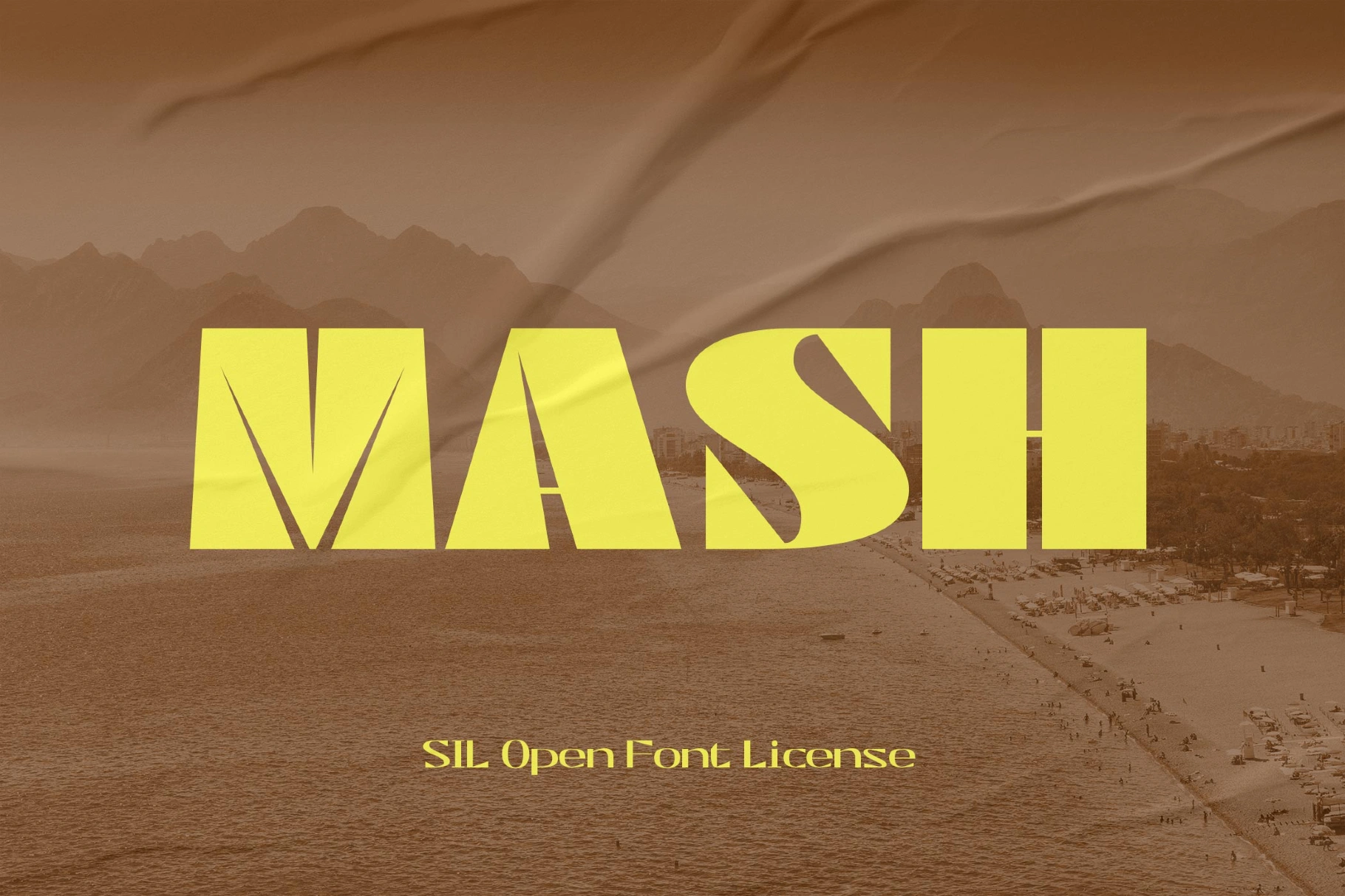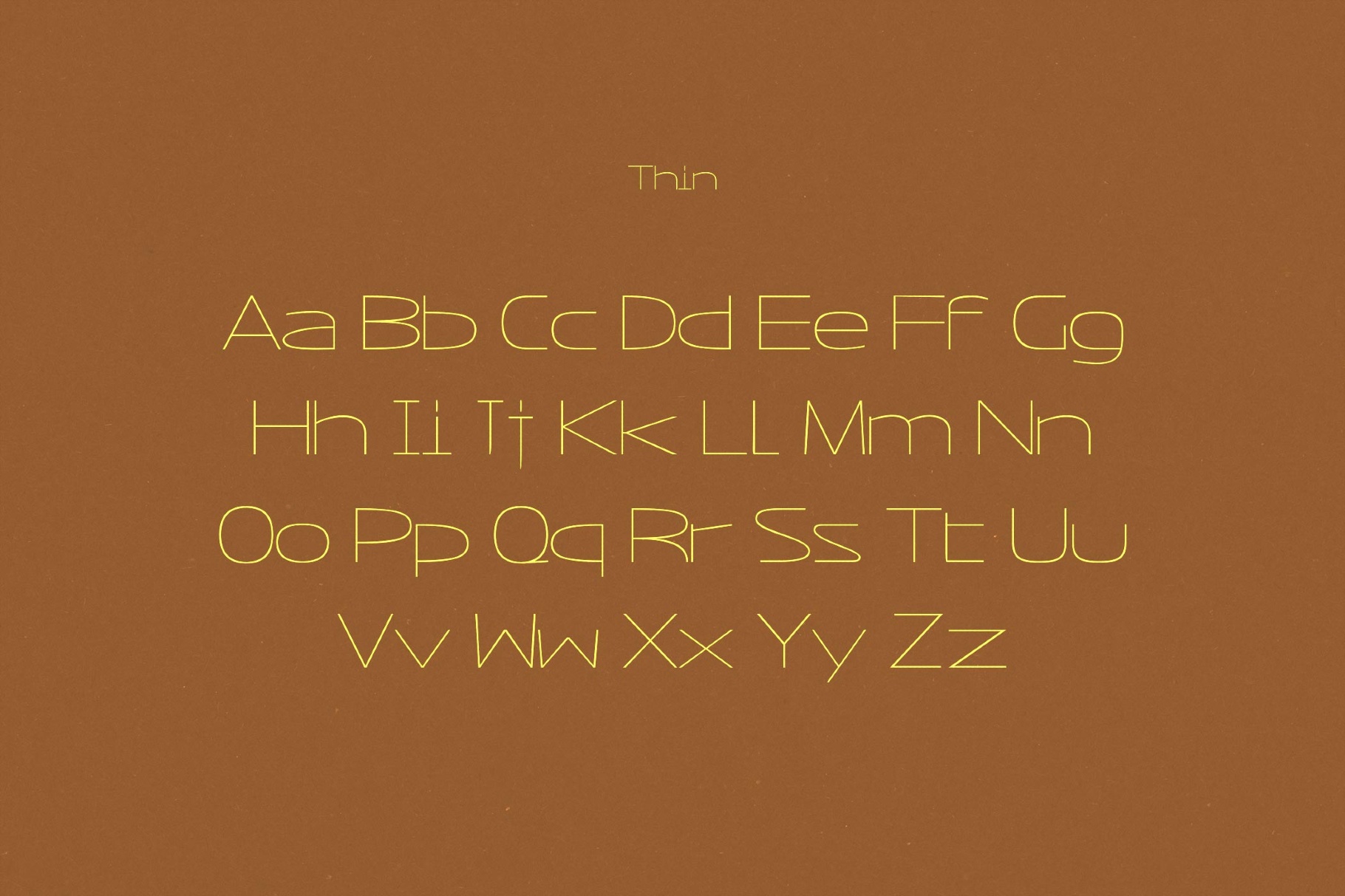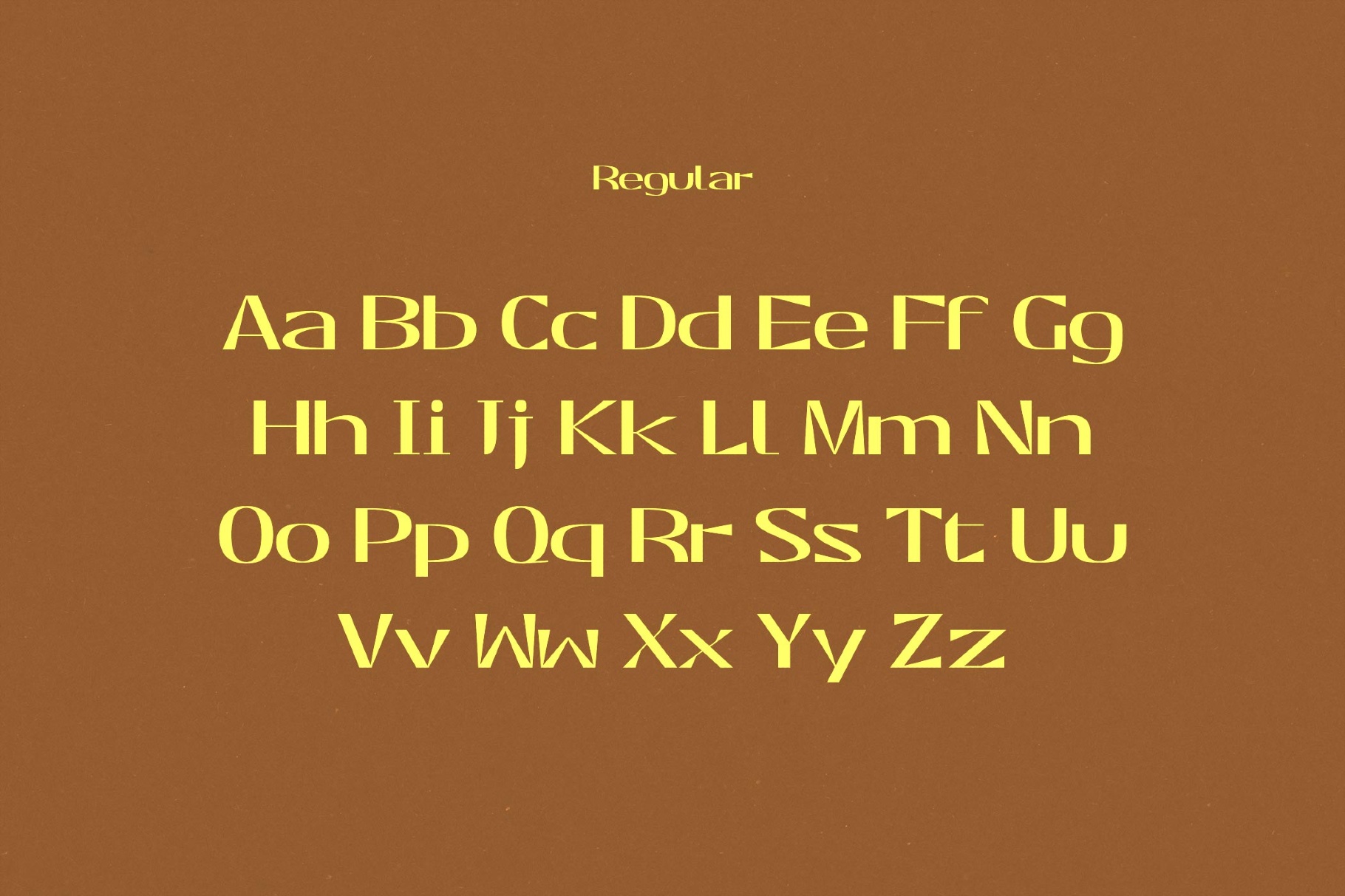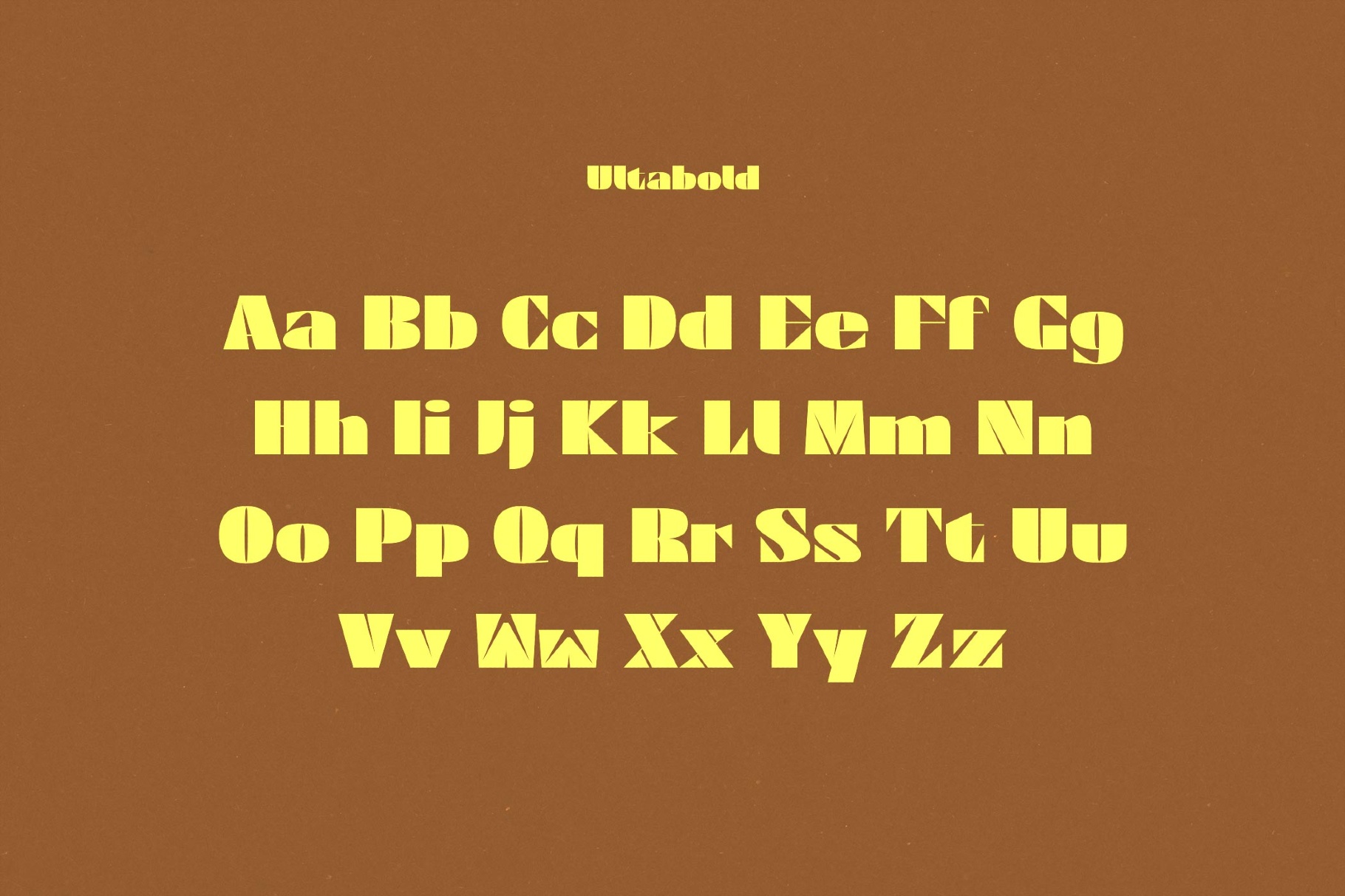
Mash Font
Ultrabold
Mash is a high-contrast sans with sharp stencil cuts and a sculpted rhythm that recalls Art Deco title cards, resort posters, and the bold glamour of Riviera print culture. This font works well for poster headlines, swimwear branding, album covers, magazine openers, packaging, event graphics and social visuals with summer feel.